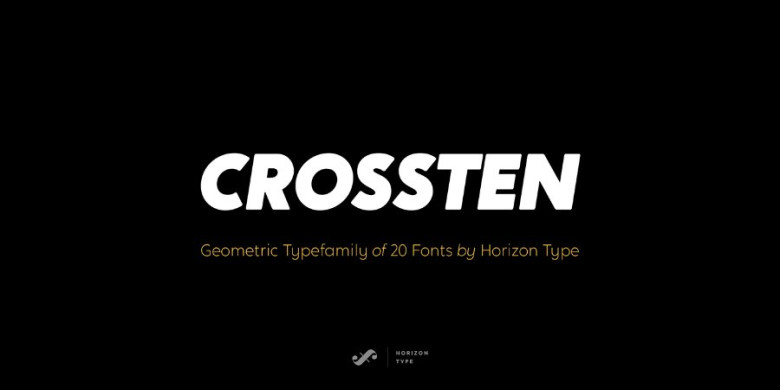
Crossten Font Family
Hello friend, Introducing Crossten, A large fonts family of 20 fonts gives you the perfect choice! It is was designed and shares by Horizon Type . Crossten is a rounded sans serif type family based on geometric forms. It comes in 20 styles 10 uprights and matching italics. Each weight includes extended language support. Crossten is incredibly useful for nearly any creative design